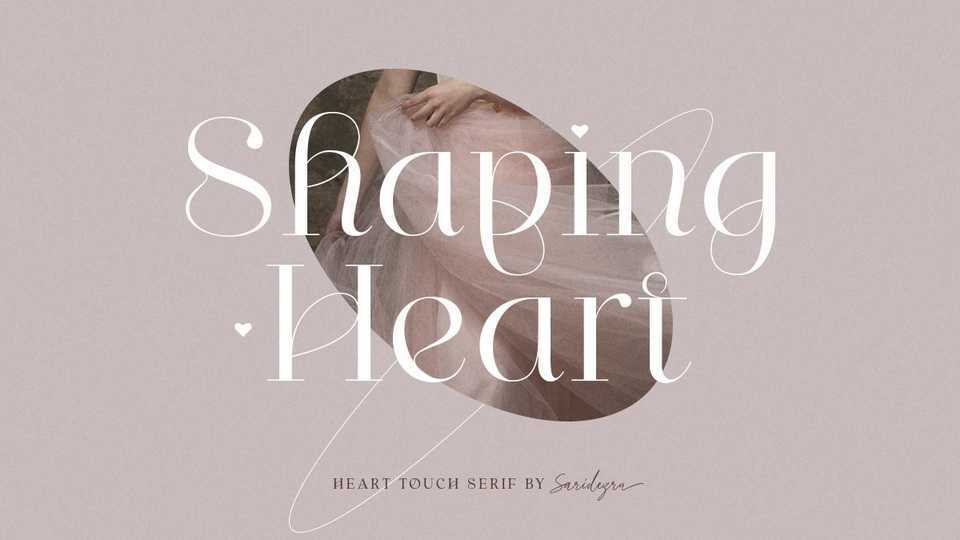
Download Shaping Heart font, an elegant and delicate serif typeface. Expertly designed to make your creation look out of this world, Shaping Heart font will look gorgeous on a variety of ideas.